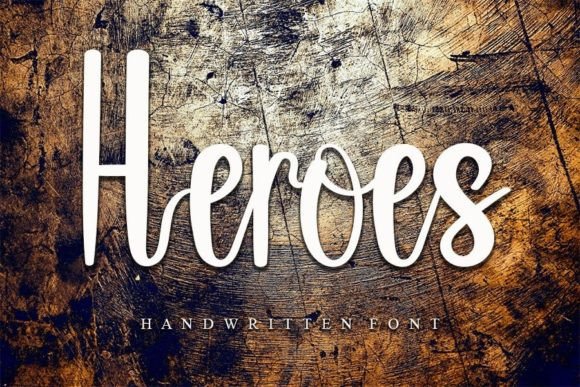
About Heroes Font
Heroes is a slender and graceful handwritten font, exuding an aura of delicacy and joy. Its dainty and charming style makes it a perfect choice for crafting elegant and romantic designs, especially well-suited for wedding invitations, greeting cards, and any other project that requires a personalized and romantic touch.
This font’s slim and delicate strokes create an air of sophistication, making it ideal for enhancing the beauty of special occasions. Whether you’re designing wedding invitations, love letters, anniversary cards, or any romantic-themed project, Heroes adds a touch of grace and intimacy, making your designs feel more heartfelt and personalized.
The font’s joyful demeanor infuses a sense of happiness and warmth into your creations. Its refined, handwritten quality brings an authentic and intimate feel, allowing you to convey emotions in a genuine and romantic way. Heroes elevates your designs, making them more memorable and meaningful to the recipients.
Embrace the elegance of Heroes and let it enhance your romantic designs. Its delicate and joyful nature adds a touch of magic, transforming ordinary moments into extraordinary experiences. Whether you’re expressing love, celebrating relationships, or commemorating special milestones, Heroes brings a romantic and personalized charm to your creations, making them truly unforgettable.